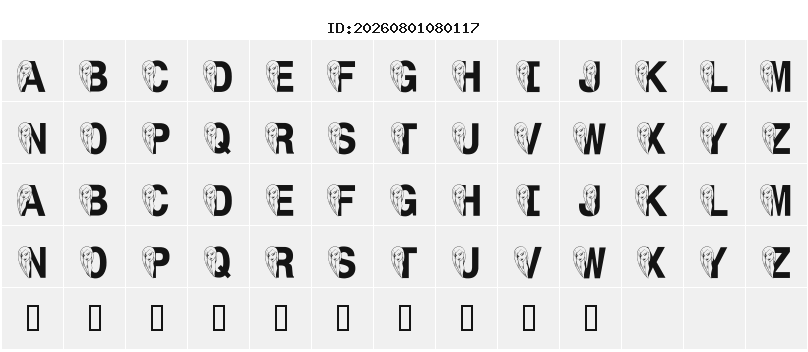
About LMS Face Forward.ttf
LMS Face Forward.ttf is a modern, elegant sans-serif font designed for ultimate readability and visual harmony. Perfect for branding, headlines, web design, and print materials.